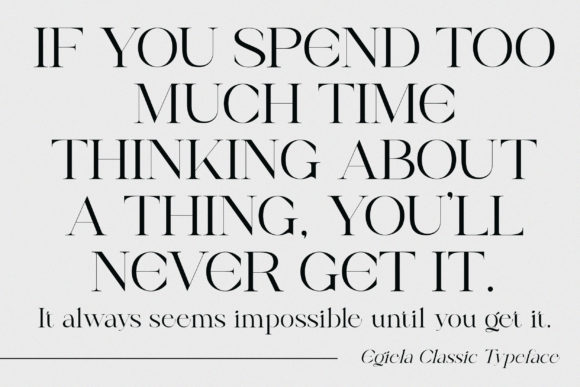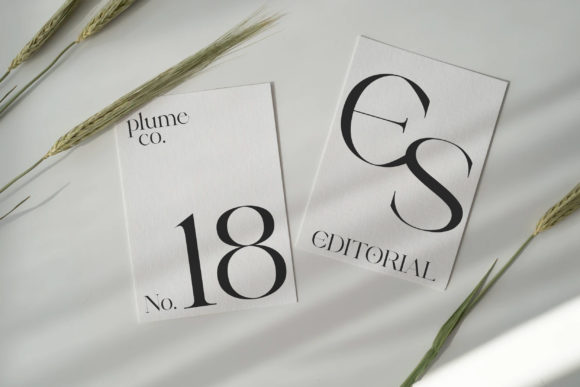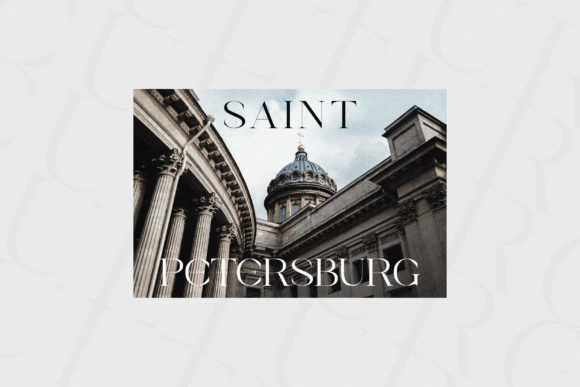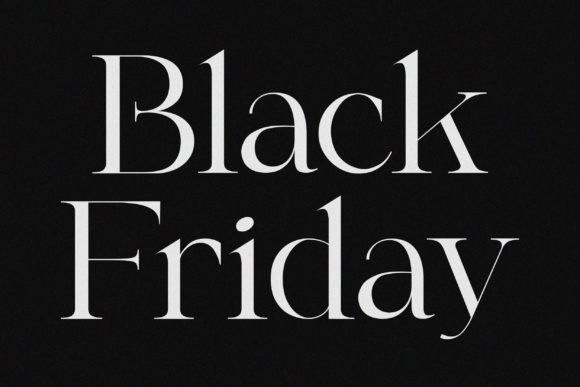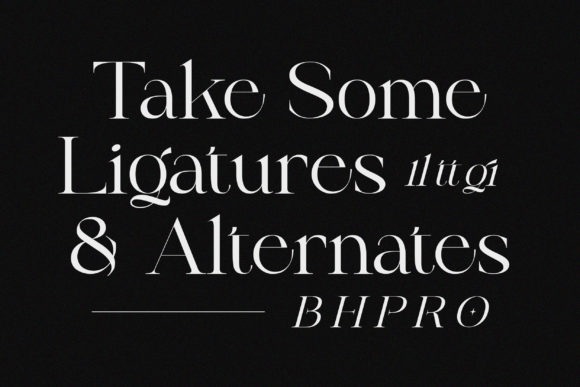
Introducing Egiela Font: Elevate Your Designs with Elegance and Sophistication
In the world of typography, a font can make or break a design. For designers and crafters seeking to add a touch of class and sophistication to their work, Egiela Font is an exceptional choice. This stylish and authentic serif font boasts a modern look that can elevate a wide range of projects, from logos and branding to invitations, stationery, wedding designs, social media posts, and beyond.
The Essence of Egiela Font
Egiela Font is designed to bring a sense of elegance and refinement to any design. Its serif characteristics add a traditional touch, while its clean lines and balanced proportions ensure a modern appeal. This font is perfect for those who want to create a lasting impression with their work, whether it’s a luxury brand, a wedding invitation, or a social media post.
One of the standout features of Egiela Font is its versatility. Its classy and elegant appearance makes it suitable for a variety of applications, including:
- Logos and Branding: Create a memorable brand identity with Egiela Font. Its sophisticated look is perfect for luxury brands, fashion labels, and high-end services.
- Invitations and Stationery: Add a touch of elegance to your invitations, greeting cards, and stationery with Egiela Font.
- Wedding Designs: Make your wedding designs truly special with Egiela Font. Its romantic and sophisticated appearance is ideal for wedding invitations, programs, and decorations.
- Social Media Posts: Elevate your social media presence with Egiela Font. Use it to create engaging and stylish posts that stand out from the crowd.
Why Choose Egiela Font?
With so many fonts available, why choose Egiela Font? Here are a few compelling reasons:
- Unique and Authentic: Egiela Font offers a distinctive and authentic look that sets it apart from other serif fonts.
- Highly Legible: The font’s clear and balanced design ensures excellent legibility, making it perfect for both print and digital applications.
- Multipurpose: As mentioned earlier, Egiela Font is incredibly versatile, making it suitable for a wide range of projects.
Tips for Using Egiela Font
To get the most out of Egiela Font, here are a few tips:
- Pair it with Other Fonts: Experiment with pairing Egiela Font with other fonts to create a unique and visually appealing combination.
- Adjust the Size and Style: Don’t be afraid to adjust the size and style of Egiela Font to suit your design needs.
- Use it Consistently: Use Egiela Font consistently throughout your design to create a cohesive and professional look.
Egiela Font is an exceptional choice for designers and crafters seeking to add a touch of elegance and sophistication to their work. Its stylish and authentic serif design, versatility, and ease of use make it perfect for a wide range of projects. Whether you’re creating a luxury brand, a wedding invitation, or a social media post, Egiela Font is sure to elevate your design and leave a lasting impression.